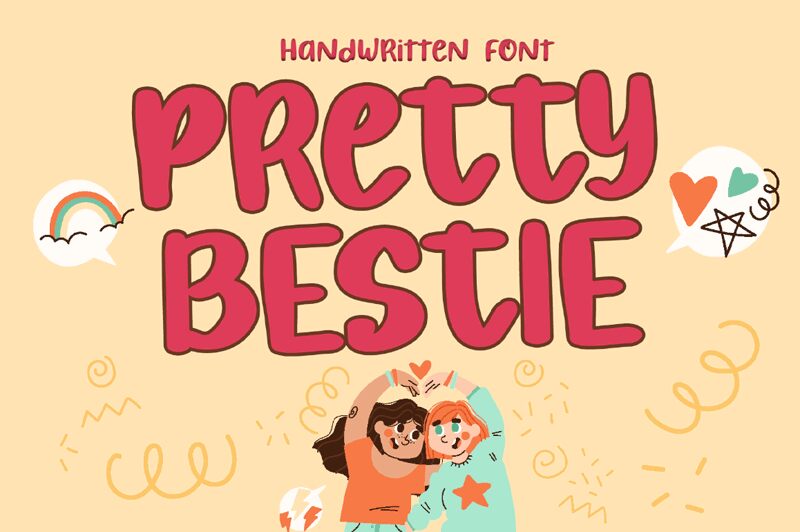
Pretty Bestie, crafted by the talented Phantom Studio, is a remarkable handwritten font that exudes boldness and confidence. Its flowing curves and assertive strokes make it perfect for projects that demand a touch of personality. Capture attention with eye-catching logos, create stunning social media graphics, or design striking packaging for beauty and lifestyle brands. This versatile semi-bold typeface unleashes creativity in various domains like invitations, fashion magazines, or even contemporary art exhibits. Elevate your projects with Pretty Bestie's undeniable charm and make a lasting impression on your audience.
Pretty Bestie